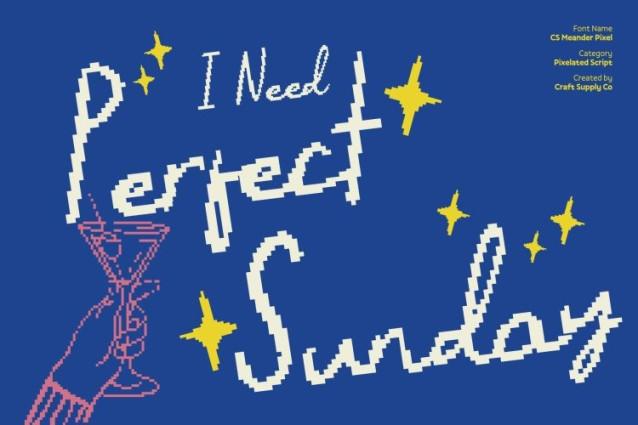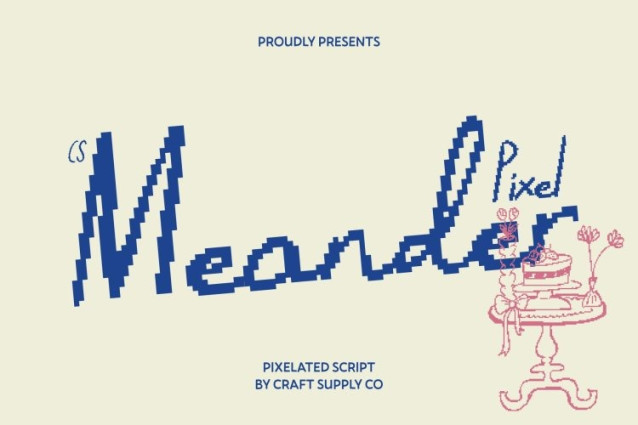
CS Meander Pixel Font This is a relaxed script font that blends natural handwritten strokes with gentle pixel-inspired details. Designed to express warmth, simplicity, and an easygoing mood, it captures the charm of everyday handwriting while adding a nostalgic digital touch. The result feels friendly, personal, and effortlessly stylish.
Simple Handwritten Forms with Soft Pixel Flow
The letterforms are intentionally simple, featuring smooth connections, balanced spacing, and subtle pixel structure that enhances visual interest without disrupting readability. Each character flows naturally into the next, creating a calm rhythm that feels unforced, relaxed, and visually inviting.
Easygoing Expression with Retro-Digital Character
This font excels at delivering a casual and approachable tone. Its relaxed script style, combined with pixel accents, evokes old digital notes and early screen lettering while maintaining modern clarity. It’s perfect for designs that value personality, comfort, and authenticity.
Perfect for Casual Branding, Social Media, and Invitations
Ideal for casual branding, lifestyle posts, invitations, packaging, and social media graphics, this font works beautifully for small businesses, personal brands, creative content, and retro-inspired digital projects. Its laid-back handwritten style ensures every design feels warm, friendly, and memorable.